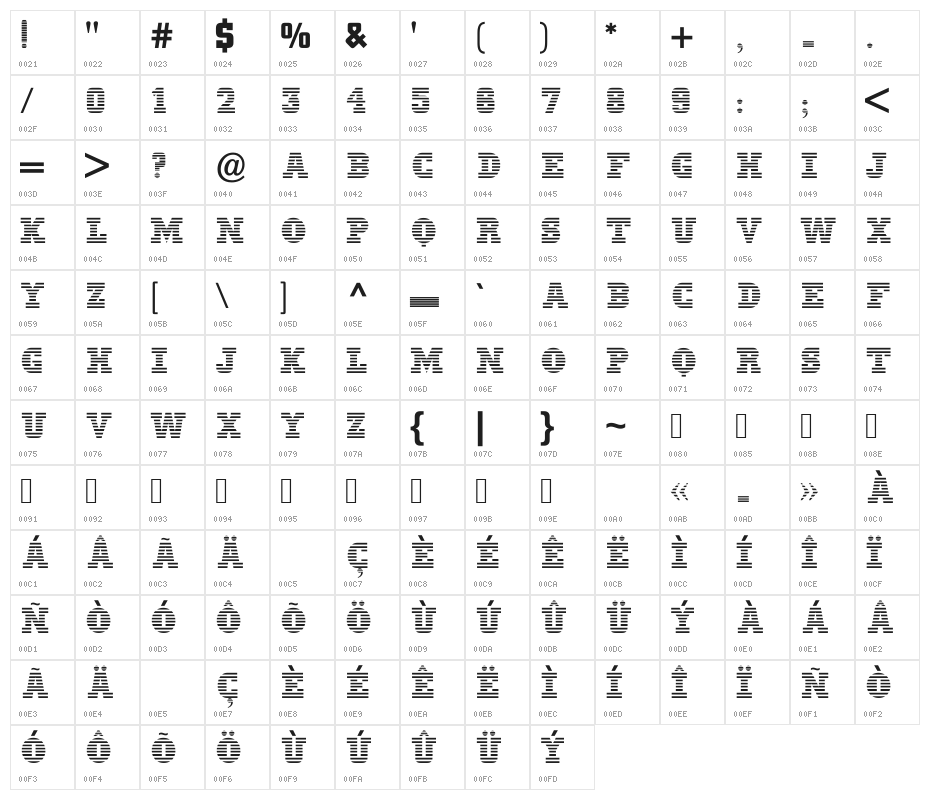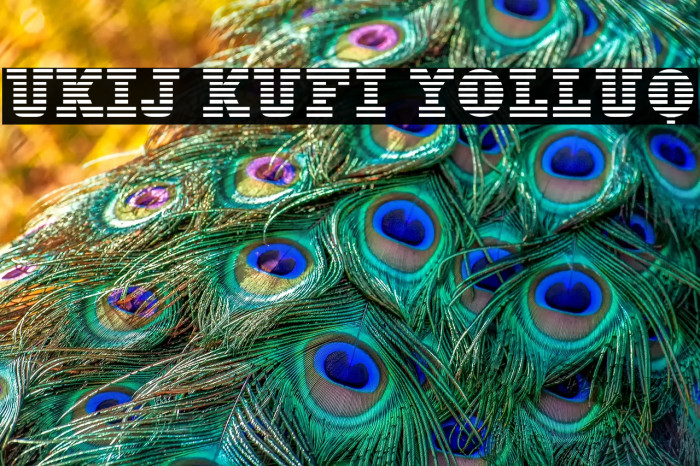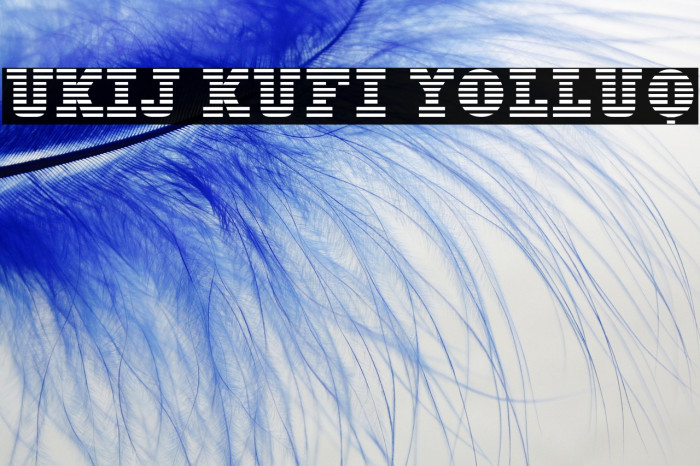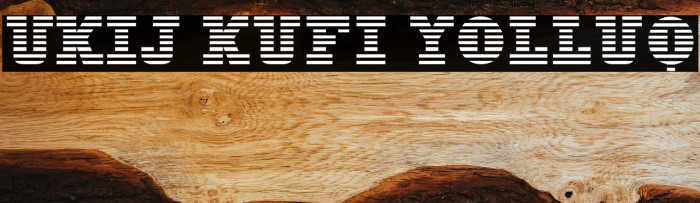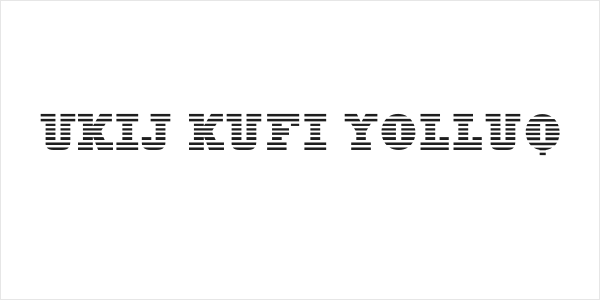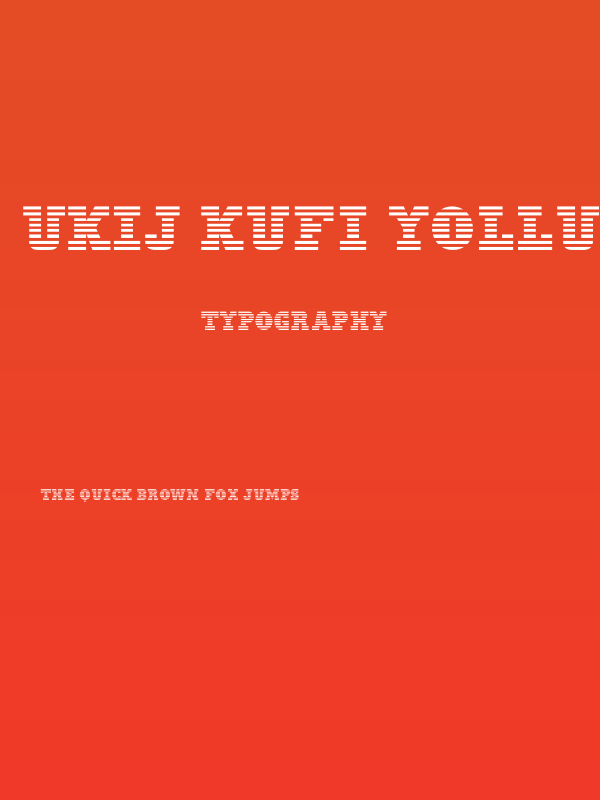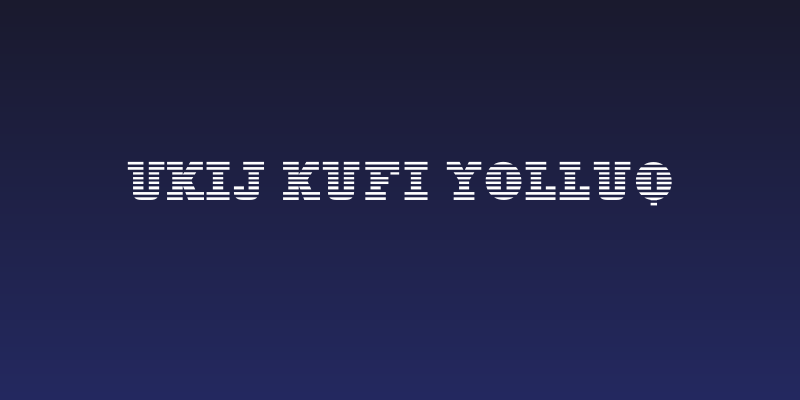
UKIJ Kufi Yolluq Font
UKIJ Kufi Yolluq Description
This font features a bold, decorative style with a unique striped pattern running horizontally through each character. The uppercase letters are prominent and eye-catching, making them suitable for attention-grabbing designs. The numbers and special characters maintain the same striped aesthetic, ensuring consistency across all elements. The font's design is modern and artistic, with a strong visual impact that can be used to convey a sense of innovation and creativity. Its distinct appearance makes it ideal for projects that require a standout typographic element.
Proposed ProjectsIdeal for posters, logos, branding, and any design requiring a bold, artistic touch.